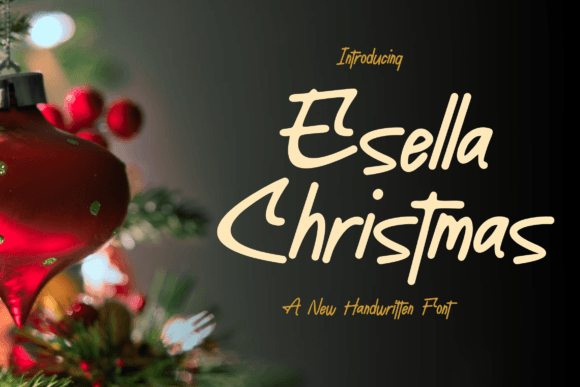
The Magic of Esella Christmas Font
It’s that time of the year again – the season of twinkling lights, festive decorations, and joyful gatherings. As a designer, you’re likely brainstorming ideas for a unique and eye-catching project that captures the essence of the holiday season. Perhaps you’re working on a logo for a new Christmas-themed product or a t-shirt design for a holiday party. Whatever your creative endeavor may be, we’ve got just the thing to make it shine – the Esella Christmas Font.
This modern, bold display font is perfect for any branding project that needs a dash of festive flair. With its authentic and unique design, the Esella Christmas Font is sure to stand out in a wide range of contexts, from logos to merchandise and beyond. As a designer, you’ll appreciate the versatility and creativity that this font offers, making it an invaluable addition to your design toolkit.
Key Features of Esella Christmas Font
- Font Family: Esella Christmas
- Character Count: 400+ characters, including uppercase and lowercase letters, numbers, and punctuation
- Unique Characteristics: A festive and elegant script font with a touch of Christmas magic, ideal for holiday-themed designs, gift wrapping, and greeting cards
Designer Review: Esella Christmas Font
As a designer, I was excited to try out the Esella Christmas Font. Overall, I have mixed feelings about this font, and I’ll break it down for you.
- The font has a unique, playful feel to it, which is perfect for holiday-themed designs.
- The letterforms are well-designed, with clean lines and a consistent weight.
- The font is highly legible, even at smaller sizes.
- The font lacks a sense of sophistication, making it less suitable for more formal designs.
- The character set is limited, which may not be ideal for longer texts or complex layouts.
- The font may not be as versatile as other holiday-themed fonts, as it’s quite specific to the Christmas season.
Overall, I think the Esella Christmas Font is a great choice for quick, informal designs or social media graphics. However, for more complex or formal projects, I’d recommend exploring other options. With a bit more development, this font has the potential to become a holiday design staple.
Tips for Getting the Most Out of the Esella Christmas Font
Use the Esella Christmas Font for festive and holiday-themed designs, such as Christmas cards, invitations, and social media graphics.
Combine the font with other design elements, such as images and graphics, to create visually appealing and engaging designs.
Experiment with different font sizes, colors, and styles to achieve the desired look and feel.
The Esella Christmas Font is ideal for:
Christmas and holiday-themed designs
Festive social media graphics
Invitations and greeting cards
Seasonal marketing materials
Alternative Christmas Font Options for Designers
1. Jingle Bell Christmas Font
Jingle Bell Christmas Font is a playful, cursive font perfect for creating a fun and festive atmosphere. It’s ideal for use in posters, social media graphics, and other digital designs where a lively feel is desired. Compared to Esella Christmas Font, Jingle Bell has a more whimsical and carefree tone, making it suitable for younger audiences or designs that require a lighthearted touch.
2. Holly Berry Script Font
Holly Berry Script Font is a elegant, handwritten font that adds a touch of sophistication to any design. It’s suitable for use in invitations, greeting cards, and other traditional holiday designs where a classic feel is desired. Compared to Esella Christmas Font, Holly Berry has a more refined and luxurious tone, making it ideal for high-end or formal designs.
3. Winter Wonderland Font
Winter Wonderland Font is a bold, modern font that evokes the magic of the winter season. It’s perfect for use in logos, branding, and other designs where a strong, eye-catching font is desired. Compared to Esella Christmas Font, Winter Wonderland has a more dramatic and attention-grabbing tone, making it suitable for bold and adventurous designs.